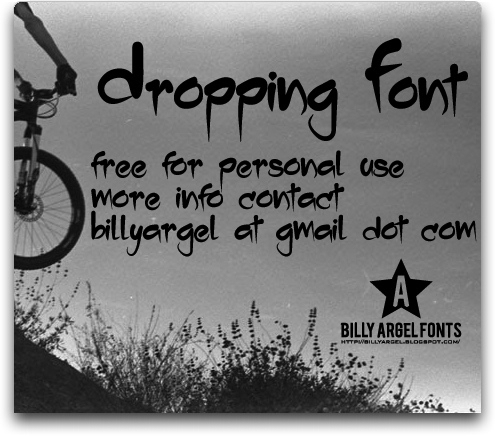
Dropping by Billy Argel is a free brush script with broad, rounded strokes and a lively, uneven flow. The letters lean and swell at different points, combining compact joins with long downward sweeps that give the line an informal, hand-painted silhouette.
Restaurant packaging and album artwork are different settings, but both suit lettering that feels informal and freshly painted by hand. On wrappers and labels, the soft forms suggest a casual place rather than a polished corporate chain. The same sweeping shapes also suit event posters and festival merchandise, where the lettering can become part of an energetic illustrated scene.